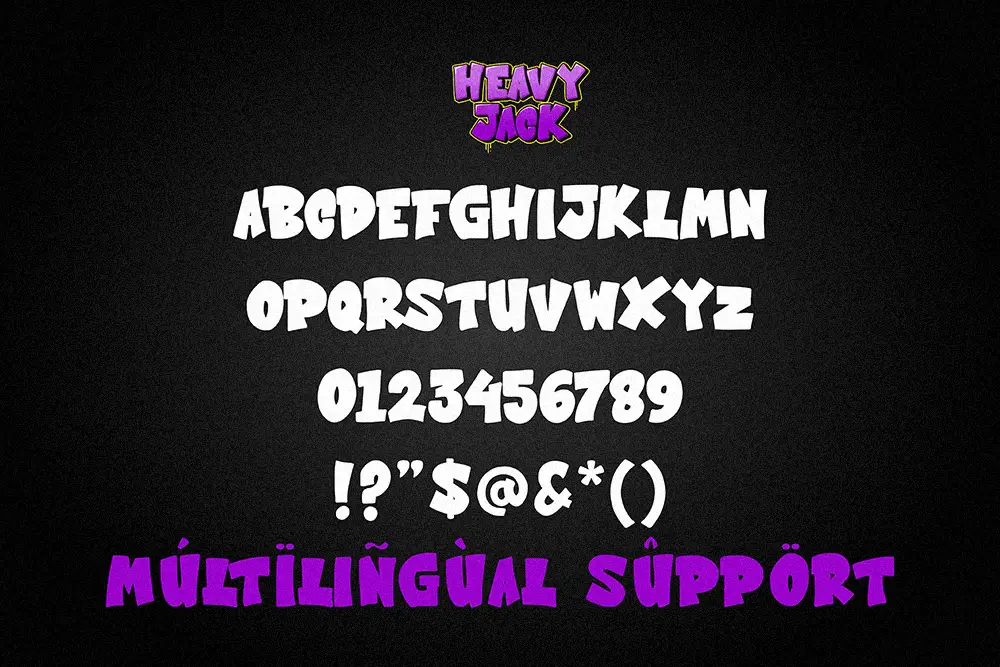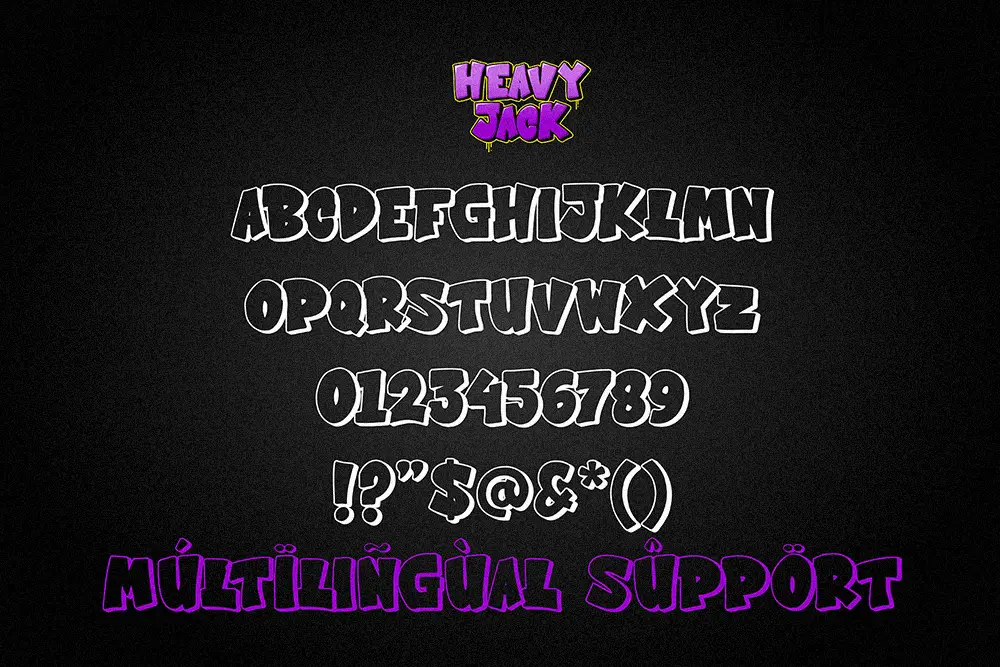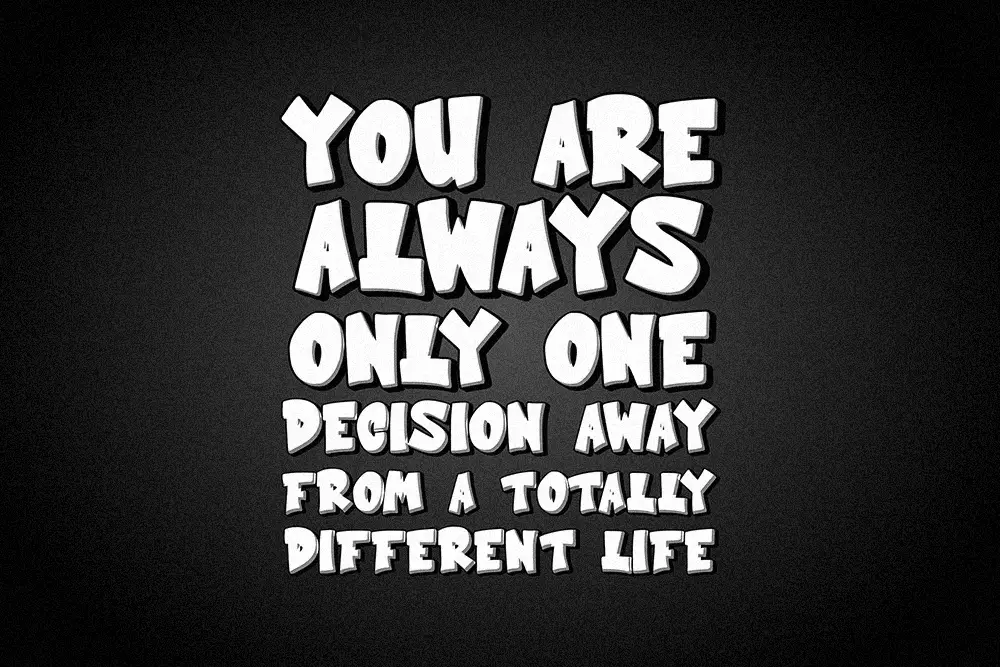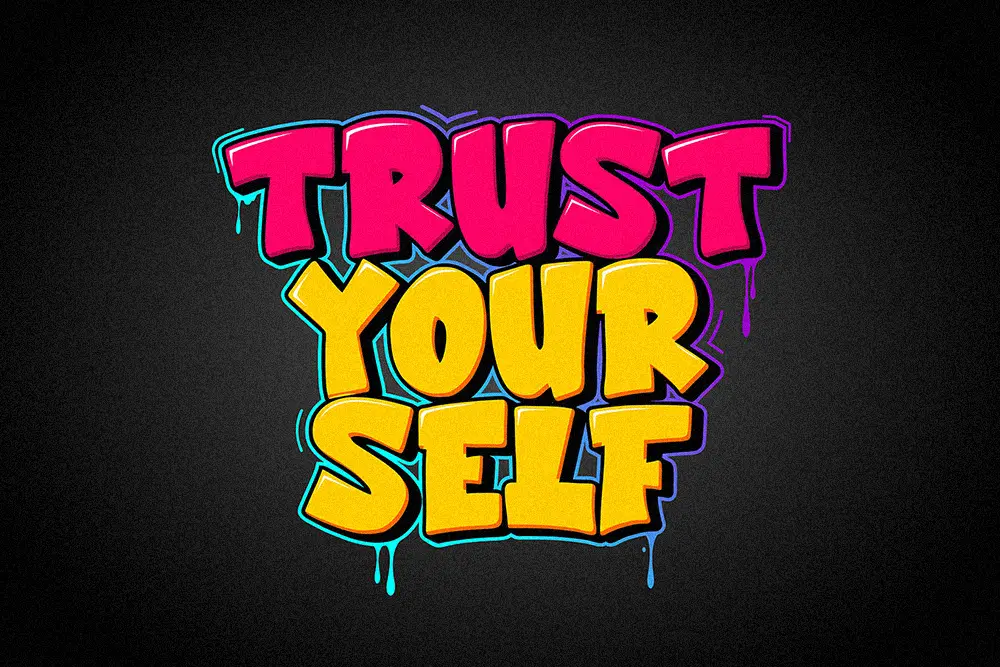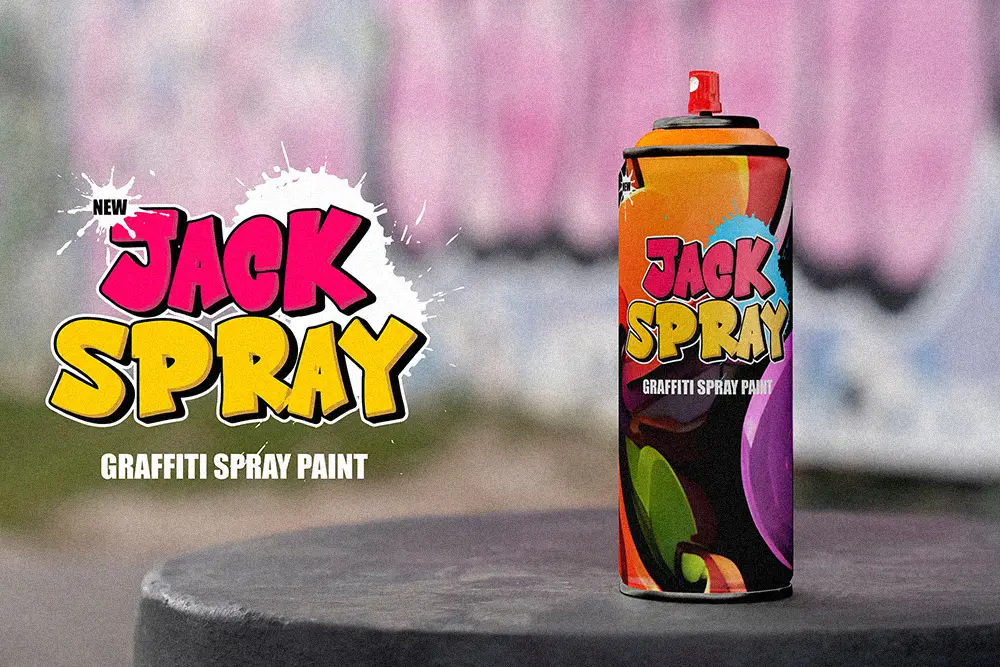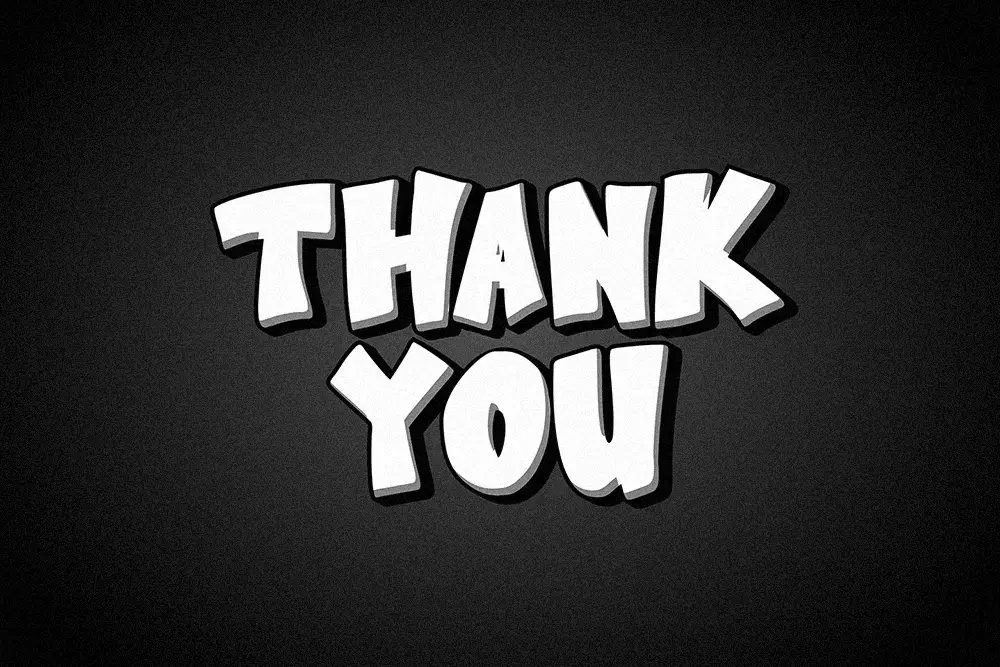
Heavy Jack – Layered Graffiti Font for Bold Street Art Designs
Typography is more than letters—it’s attitude, rhythm, and voice. Heavy Jack – Layered Graffiti Font is designed for creatives who want to capture the fearless, urban spirit of graffiti in their work. With its layered graffiti font style and powerful allcaps letters, Heavy Jack is perfect for street art-inspired branding, bold posters, merchandise, and music covers.
This layered graffiti font doesn’t just look strong—it adds depth and texture through its layered design, giving your words a three-dimensional edge that commands attention.
Layered Graffiti Font with Street Energy
Heavy Jack was created to embody the raw energy of graffiti walls and urban culture. Its layered construction—featuring a strong main font and a complementary shadow style—lets you create designs that feel bold, gritty, and full of personality.
As an allcaps layered graffiti font, it’s ideal for headlines, logos, and projects where you need maximum impact. Whether you’re designing hip-hop posters, skateboarding apparel branding, or underground event flyers, Heavy Jack delivers the fearless vibe of the streets.
Key Features of Heavy Jack – Layered Graffiti Font
Designers need more than just a cool look—they need flexibility and functionality. Here’s what makes Heavy Jack the ultimate layered graffiti font:
• Allcaps Only: For maximum graffiti-style strength and readability
• Multilingual Support: Extended Latin characters for international projects
• Layered Design: Combine base + shadow for dynamic, street-inspired effects
• High Impact Style: Perfect for posters, logos, covers, and advertising
• Easy to Use: Works in all major design software
Why Designers Love Heavy Jack
Designers gravitate toward Heavy Jack because it combines style with practicality. Here’s why this layered graffiti font is a favorite:
• Authentic Vibe: Captures the fearless look of graffiti culture
• Flexible Layers: Shadow style adds depth and creative control
• Strong Visual Identity: Allcaps lettering makes logos unforgettable
• Multilingual Reach: Suitable for global projects
Heavy Jack for Logos and Branding
Logos built with Heavy Jack command attention. This layered graffiti font gives brands an edge that’s perfect for youth culture, music, gaming, and sports. Its layered structure makes it stand out in urban merchandise, skate shops, and lifestyle branding.
For a striking combination, pair it with Roads Block Heavy and Powerful Font. The heavy strokes of Roads Block complement Heavy Jack’s layered graffiti energy, creating logos that feel unstoppable.
Heavy Jack for Posters and Album Covers
When it comes to posters and album artwork, impact is everything. Heavy Jack’s layered graffiti font style is perfect for hip-hop concerts, underground club events, and music covers. The shadow layer adds depth that mimics spray-painted graffiti walls, making every headline pop.
Your posters won’t just look designed—they’ll feel alive with energy.
Heavy Jack in Digital Media and Street Campaigns
In the age of social media, digital presence matters. Heavy Jack is the layered graffiti font that ensures your YouTube thumbnails, Twitch banners, and Instagram graphics scream personality.
It’s also perfect for street campaigns—whether that’s flyers, stickers, or large murals. The layered look ensures versatility across print and digital platforms.
Why Heavy Jack is the Ultimate Layered Graffiti Font
Typography trends in street culture lean toward bold, expressive designs. Heavy Jack captures this perfectly. As a layered graffiti font, it combines artistic energy with functional design.
Designers love it because it works across print, digital, and global projects. Its layered construction adds depth, while its allcaps style guarantees impact. Combined with Roads Block, it becomes a powerhouse for any urban-themed design.
Heavy Jack – Layered Graffiti Font is more than a typeface—it’s a design tool that captures the fearless energy of graffiti culture. With allcaps letters, multilingual support, and layered shadow effects, it’s built for bold projects that demand attention.
If you want to elevate your branding, posters, or digital media with a gritty urban vibe, Heavy Jack is your answer. Pair it with Roads Block for unstoppable power, and let your designs explode with energy.